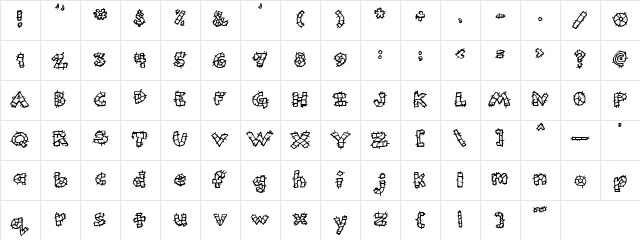
Complete AnniesPatchStripes Regular glyph index. Displaying only characters natively supported by AnniesPatchStripes Regular font.
AnniesPatchStripes is a composed and adaptable typeface that performs quietly and consistently across a wide range of design contexts.